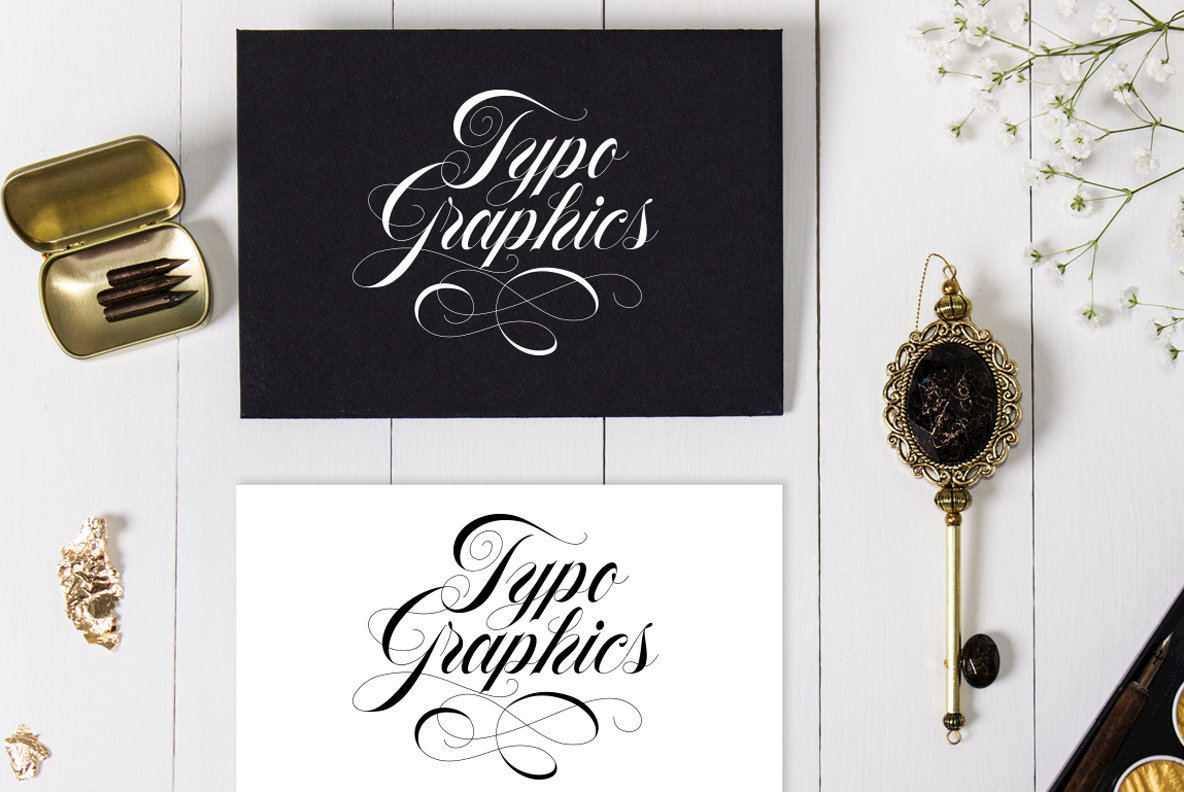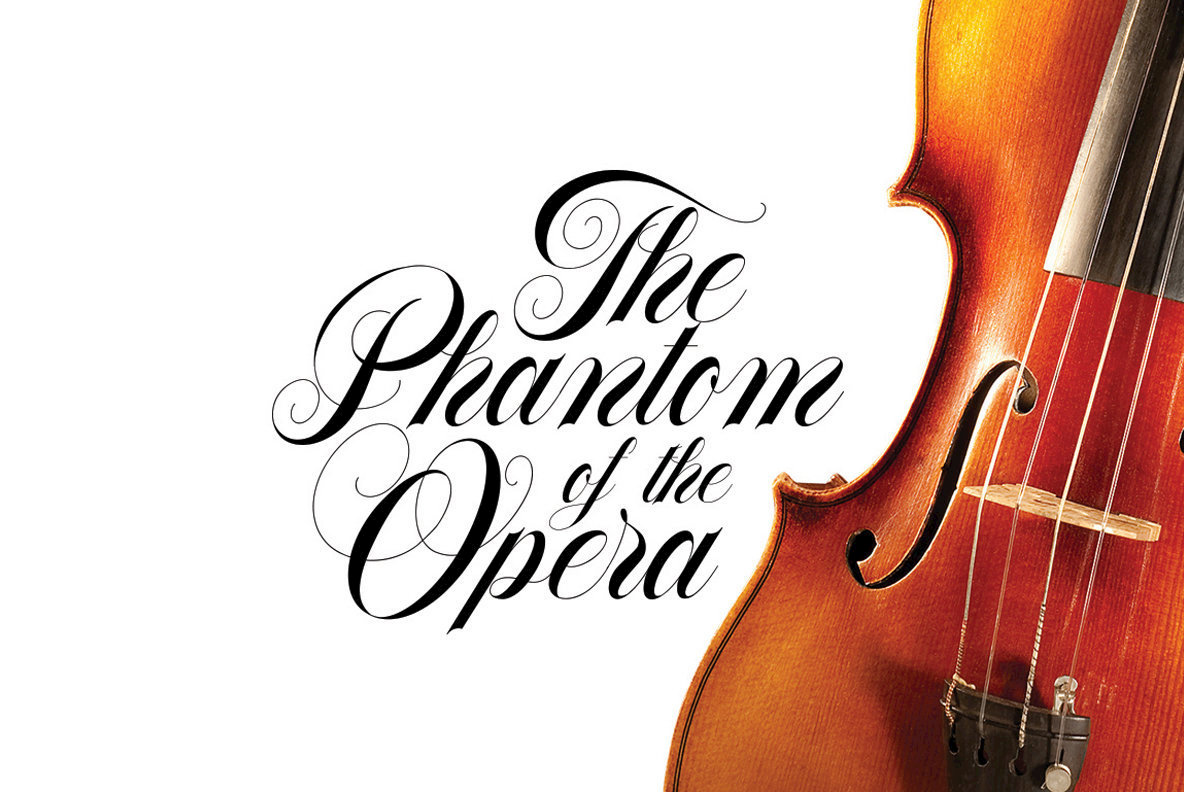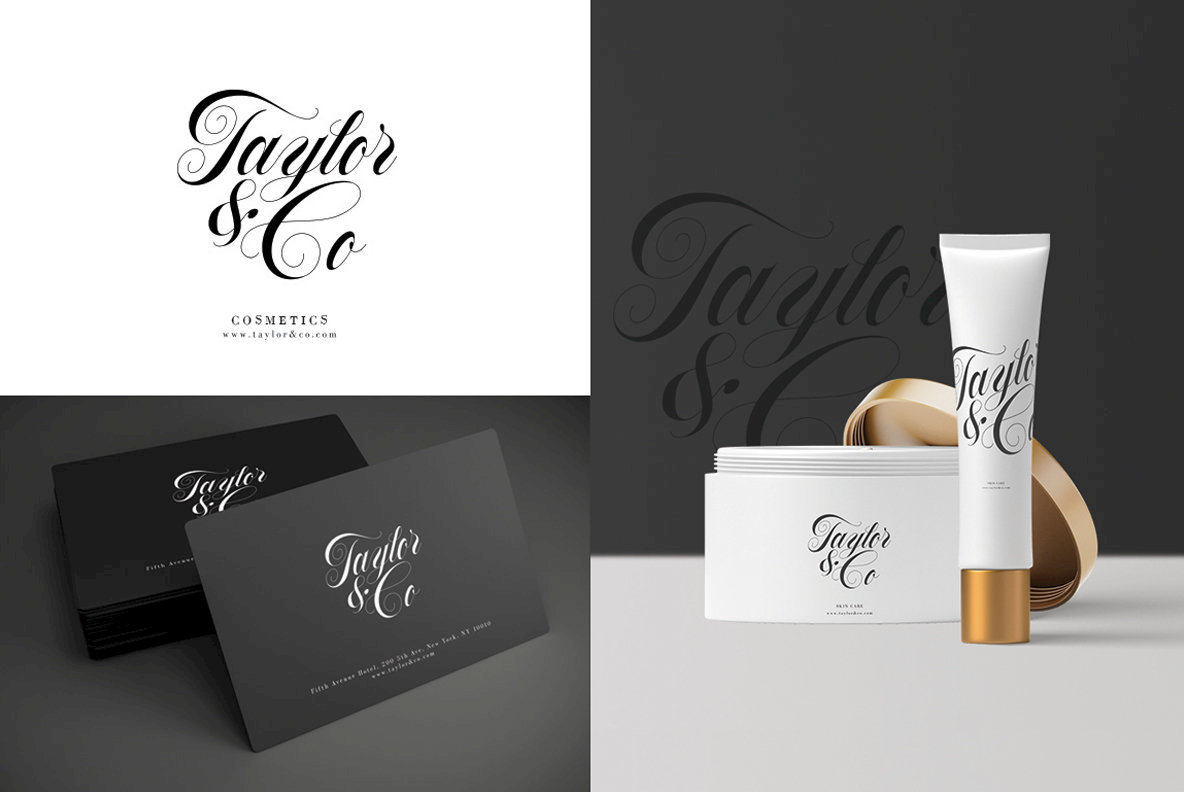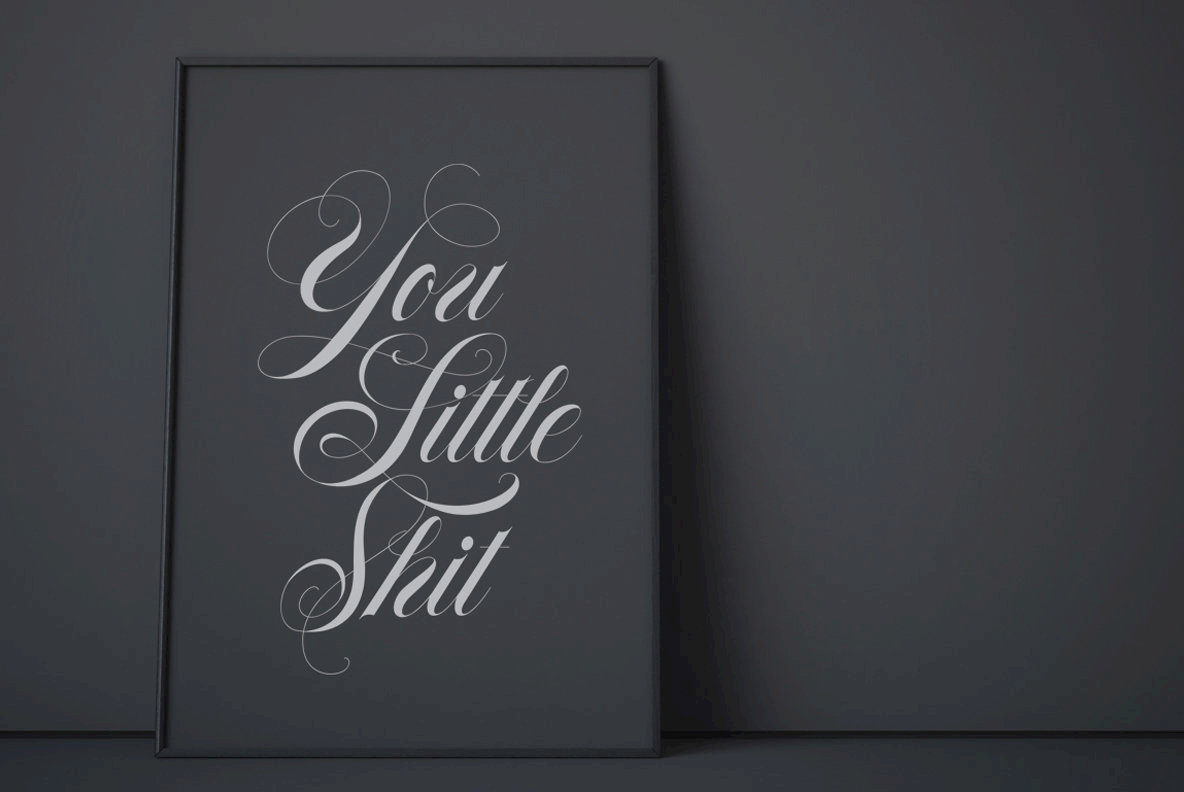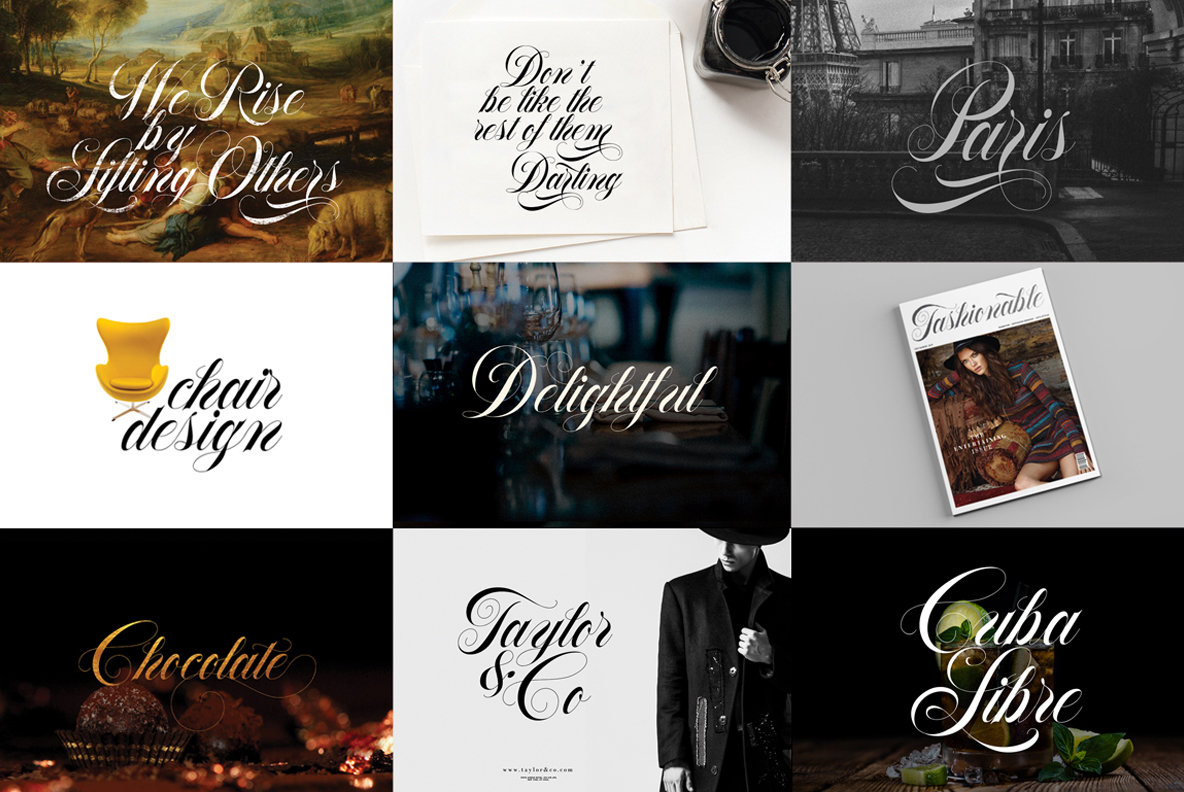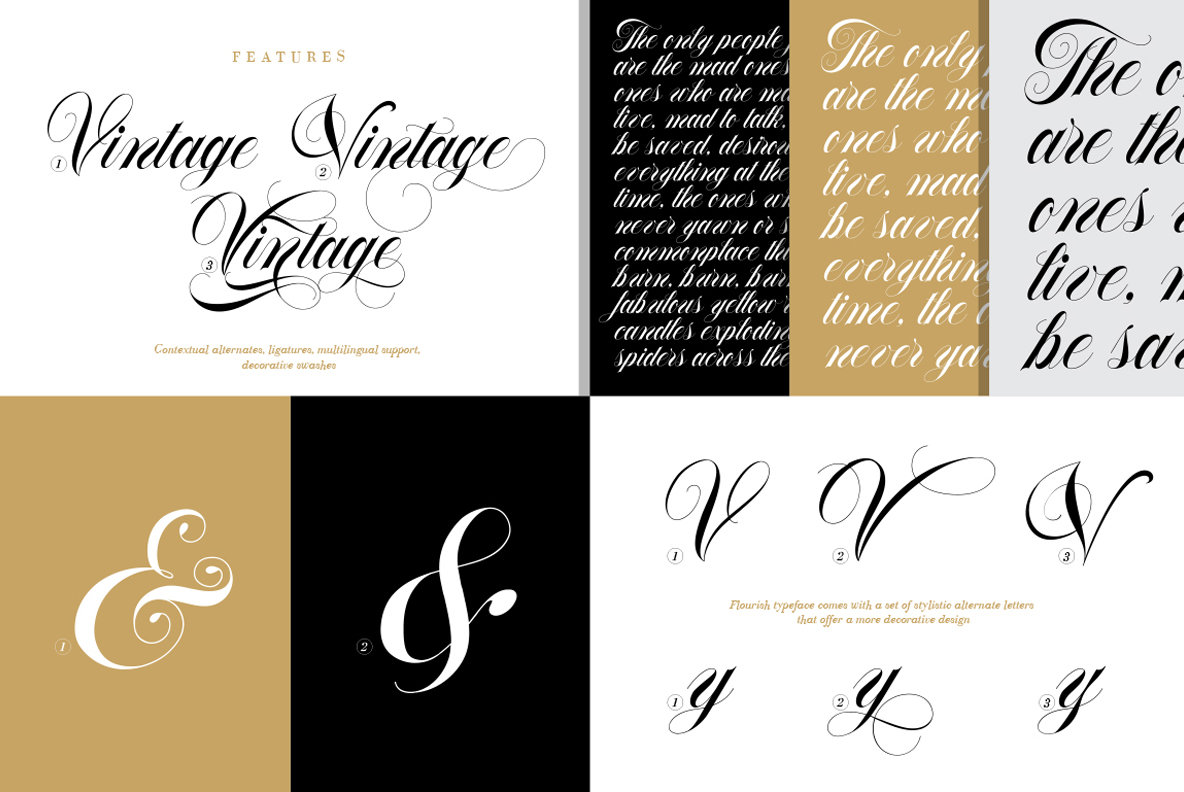
With the new Flourish Typeface every single word becomes magnificent. It is a font with lots of alternates and OpenType features, perfect for a design that stands out even if it’s a logo, packaging, web, homeware design or simply a stylish text overlay to any background image.
Flourish Typeface features:
- Stylistic alternatives & swashes
- International characters (Multilingual)
- Punctuation & symbols